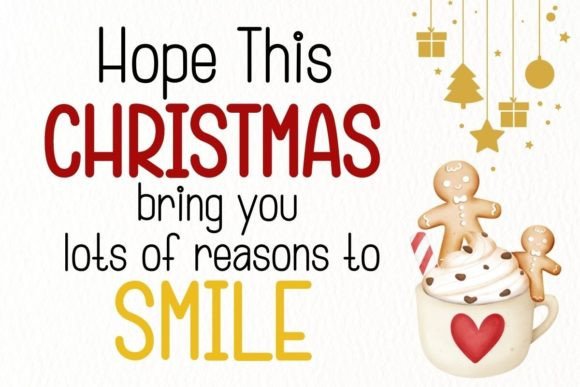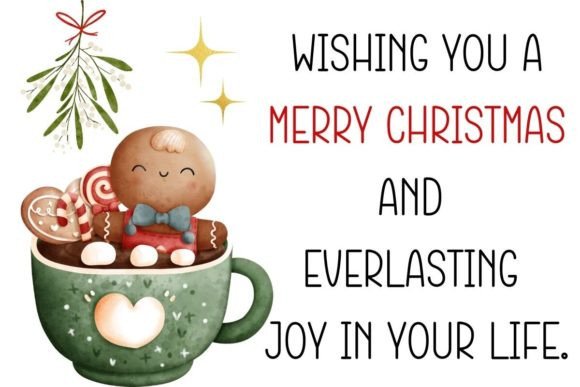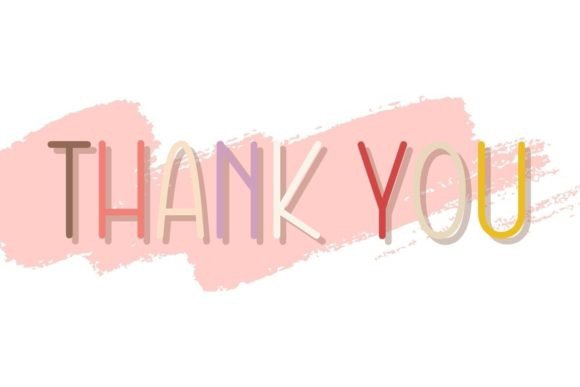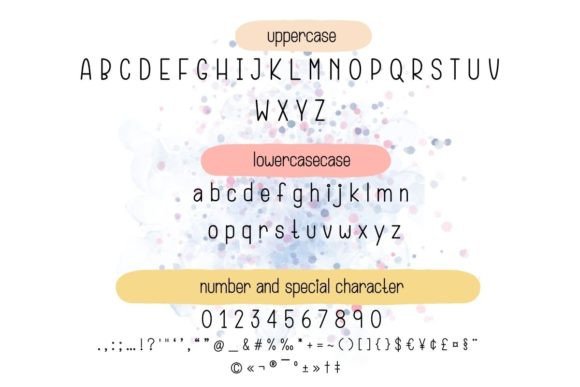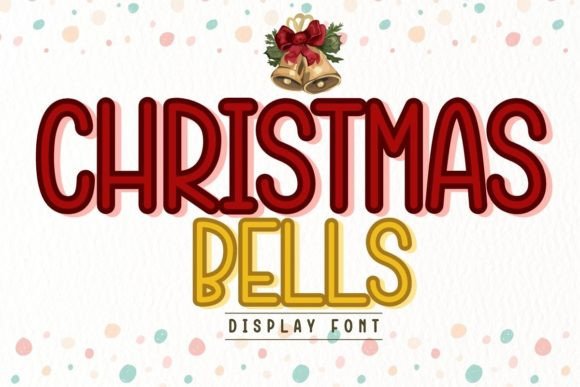
Deck the Halls with “Christmas Bells” Font: A Festive Design Companion
Hey, design pals! Let’s dive into font magic with “Christmas Bells” – the perfect blend of captivating Display Fonts and charming Script Fonts. This font is like that cheerful friend who brings holiday joy to every project with its handwritten elegance and festive flair. Imagine your designs twinkling with the merry spirit of “Christmas Bells.” From greeting cards to seasonal banners, it’s like having a buddy who spreads holiday cheer wherever it goes.
The Magic of “Christmas Bells” Font
So, what makes “Christmas Bells” so special? This delightful font combines the best of both worlds: the eye-catching appeal of Display Fonts and the personal touch of Script Fonts. The result is a typeface that’s not only visually stunning but also warm and inviting. Whether you’re crafting a holiday greeting card, a festive banner, or a cozy winter-themed blog post, “Christmas Bells” adds that extra sparkle that makes your designs shine.
Key Features of “Christmas Bells” Font
- Handwritten Elegance: “Christmas Bells” boasts a beautiful, handcrafted feel that gives your designs a personal and intimate touch.
- Festive Flair: With its holiday-inspired design, this font is perfect for Christmas-themed projects, but it can also add a touch of whimsy to other seasonal or winter-related designs.
- Versatility: “Christmas Bells” can be used for a wide range of projects, from digital content to print materials, making it a versatile addition to your font collection.
- Easy to Read: Despite its decorative nature, “Christmas Bells” remains clear and legible, ensuring your message gets across with style.
Using “Christmas Bells” in Your Designs
Ready to bring some holiday cheer to your creations? Here are a few ideas to get you started:
- Greeting Cards: Add a personal touch to your holiday greeting cards with “Christmas Bells”. Its elegant, handwritten style makes it perfect for conveying warm wishes.
- Seasonal Banners: Create eye-catching banners for your website, social media, or physical displays. “Christmas Bells” will add a festive flair that captures attention and spreads joy.
- Blog Posts: Give your winter-themed blog posts a cozy and inviting feel with “Christmas Bells”. It’s ideal for headings, titles, or even short quotes within your content.
- Social Media Graphics: Stand out on social media with festive graphics featuring “Christmas Bells”. Whether it’s a holiday announcement or a seasonal tip, this font will make your posts merry and bright.
Tips for Pairing “Christmas Bells” with Other Fonts
To maximize the impact of “Christmas Bells”, consider pairing it with complementary fonts. Here are some tips:
- Contrasting Fonts: Pair “Christmas Bells” with a simple, sans-serif font for body text to create a balanced look that’s both festive and readable.
- Similar Script Fonts: For a more cohesive look, try pairing “Christmas Bells” with another script font that shares similar elegant or whimsical qualities.
- Bold and Italic: Experiment with bold and italic versions of “Christmas Bells” to add emphasis and hierarchy to your designs.
So, if you’re ready to add a touch of warmth and whimsy to your creations, team up with “Christmas Bells” and let the festive fun begin! This enchanting font is more than just a typeface – it’s a design companion that brings holiday joy to every project. With its captivating blend of Display and Script Fonts, “Christmas Bells” is sure to become your go-to for all your holiday and winter-themed designs.